There’s nothing quite like the perfect Halloween font to transform an ordinary design into something absolutely bone-chilling. Whether you’re crafting party invitations that make guests shiver with anticipation or designing packaging that screams “pick me” from the store shelf, the right typeface can make all the difference between “meh” and “magnificent.”
Halloween fonts are the secret ingredient that can turn your designs from basic to boo-tiful. They’re not just letters on a page – they’re atmospheric storytellers that whisper tales of haunted houses, cackling witches, and things that go bump in the night.
In this ghoulishly good guide, we’ll uncover the most hauntingly beautiful Halloween fonts that are absolutely killing it in 2026. So grab your pumpkin spice latte, dim the lights, and let’s dive into this typographic graveyard!
The Most Spine-Chilling Halloween Fonts of 2026
Not all Halloween fonts are created equal – some are downright scary good, while others are just plain scary (in a bad way). I’ve conjured up a list of the most wickedly wonderful fonts that’ll make your designs absolutely spook-tacular:
Halloween Font
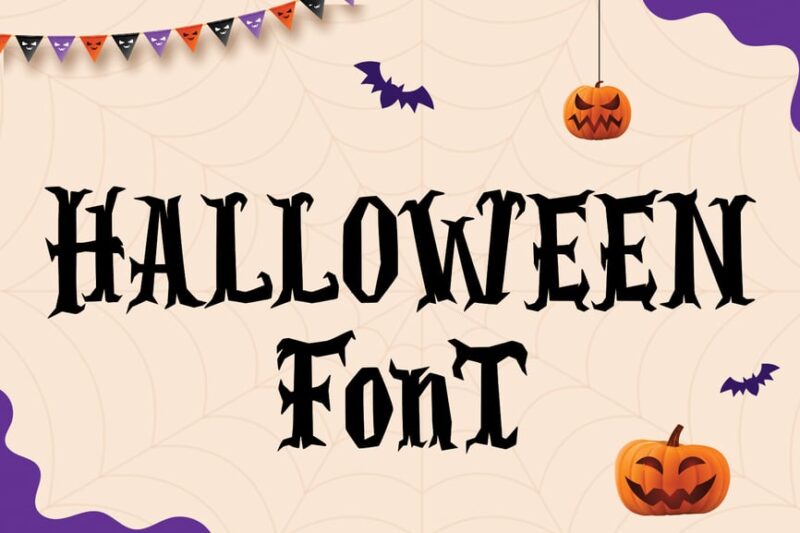
This sans-serif font embodies the spirit of Halloween with its spooky and playful design. And TBH, it’s kindof giving ‘Harry Potter’ Font in a way… It’s perfect for creating eye-catching titles and headlines for Halloween-themed projects, offering a balance between readability and festive charm.
Halloween Timeline – Display Font
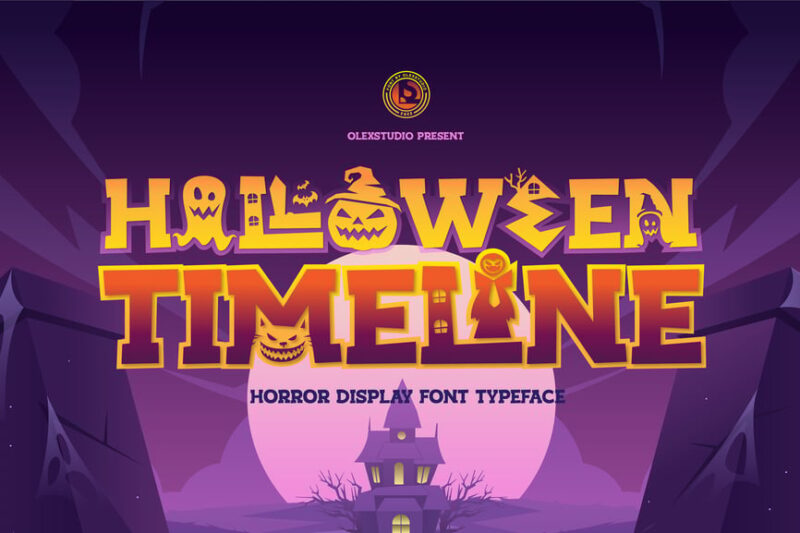
This serif display font captures the eerie essence of Halloween with its vintage-inspired design. Its distinctive characters make it ideal for large-scale applications like posters or book covers, adding a touch of classic horror to any project.
Happy Halloween
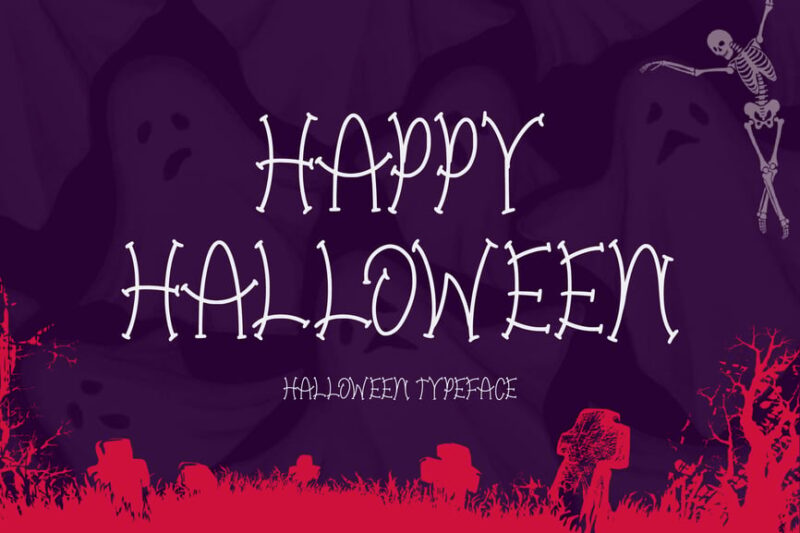
This decorative font captures the fun and festive side of Halloween. Its playful monoline design incorporates holiday motifs, making it ideal for creating invitations, greeting cards, or social media posts with a cheerful Halloween vibe.
Fantasia Halloween – A Horror Typeface
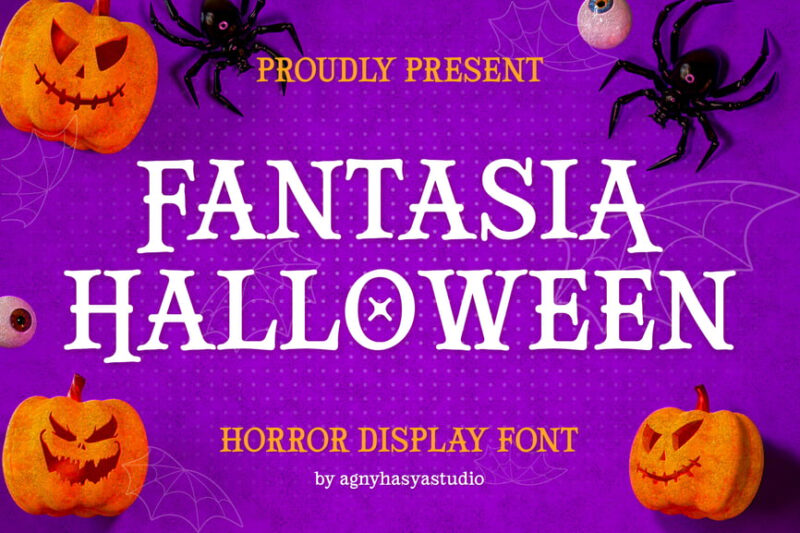
This decorative horror typeface blends fantasy and fright to create a unique Halloween aesthetic. Its intricate details and bold style make it perfect for creating standout titles in horror-themed designs or Halloween marketing materials.
Haunted House
This decorative font evokes the eerie atmosphere of a haunted house with its gothic-inspired design. Its spooky yet elegant characters are perfect for creating mysterious and atmospheric text in Halloween and autumn-themed projects.
Halloween – Might Night
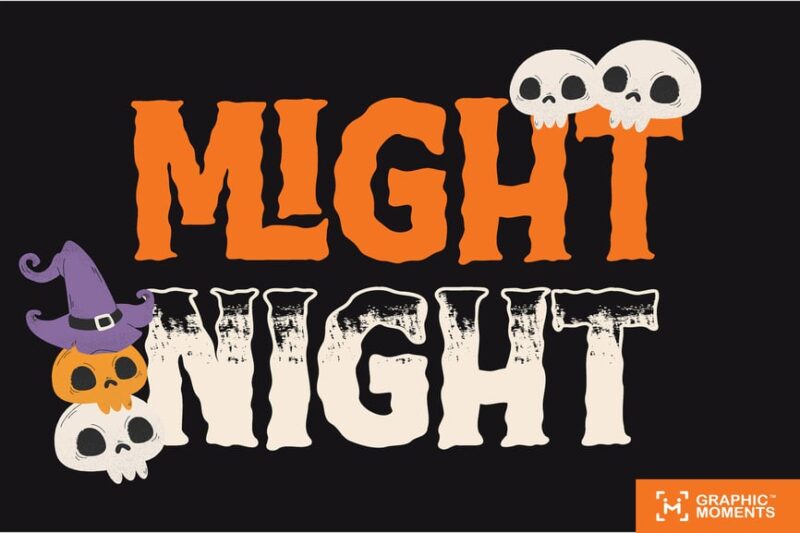
This decorative font captures the darkness and evil associated with Halloween night. Its wavy characters create a sense of foreboding fun, making it ideal for fun Halloween event promotions.
Scarville
This decorative font with included symbols brings a “Nightmare Before Christmas” feel to Halloween designs. Its distressed look and grungy texture make it perfect for creating a post-apocalyptic or horror-survival aesthetic in graphic projects.
Halloween – Zombie Outbreak
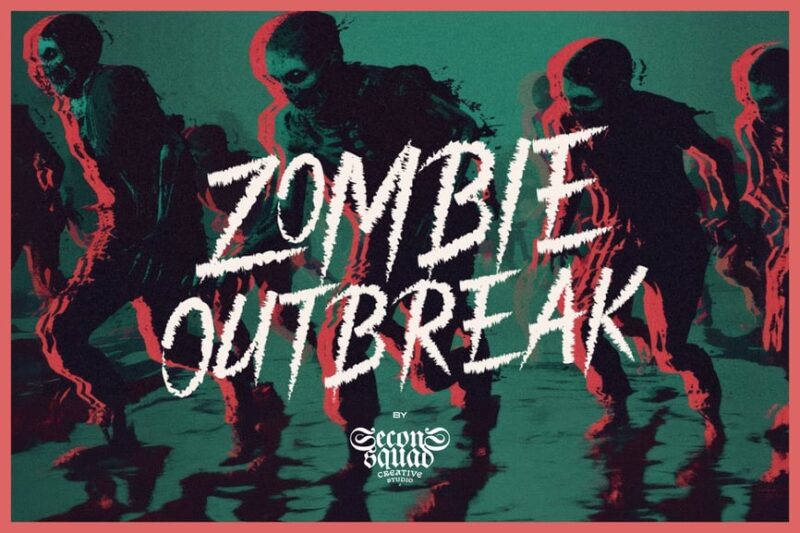
This decorative font embodies the chaos and terror of a zombie outbreak. Its rough, chalky style perfectly captures the essence of zombie-themed Halloween designs, ideal for creating attention-grabbing headlines or game titles.
Halloween Sunday – a Playful Scary font
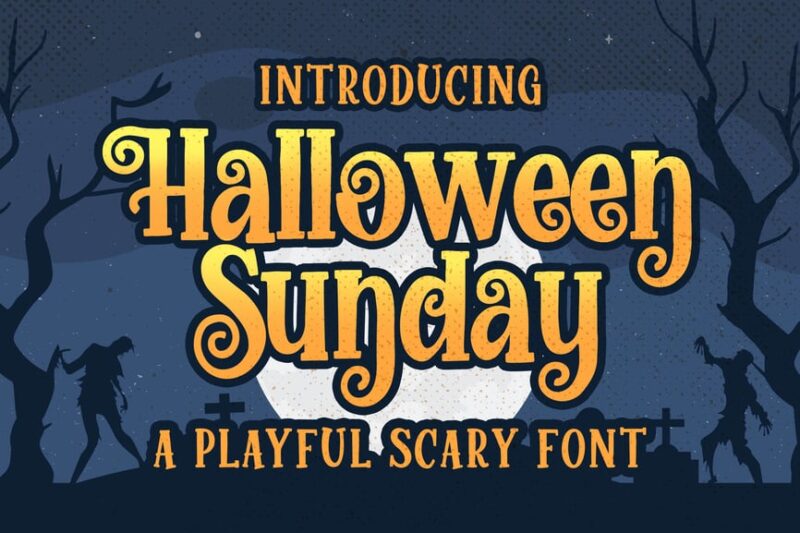
This serif font strikes a balance between playful and scary, perfect for family-friendly Halloween designs. Its scary characters add a touch of whimsy to creepy concepts, making it versatile for various Halloween-themed projects.
SpookInk – Halloween Font
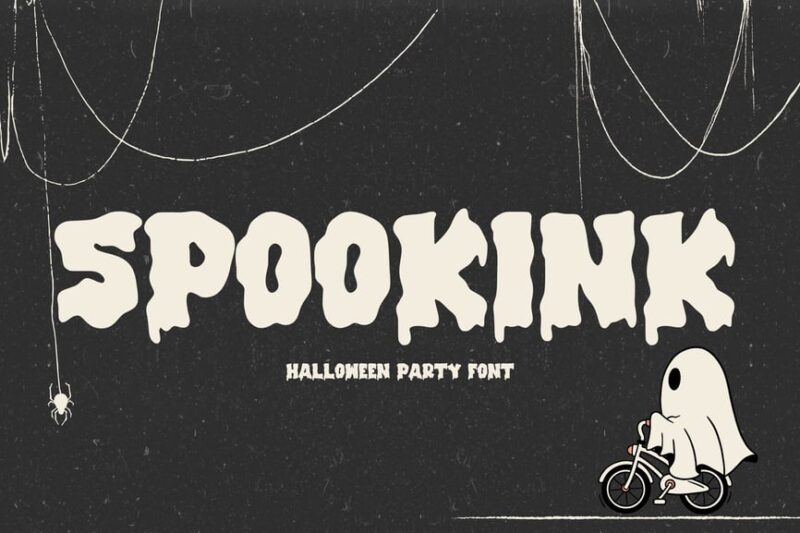
This decorative font combines a hand-drawn style with horror elements. Its inky, drippy texture creates a sense of unsettling eeriness, perfect for creating atmospheric text in Halloween invitations, posters, or horror-themed designs.
Trick or Treat Silhouette Font
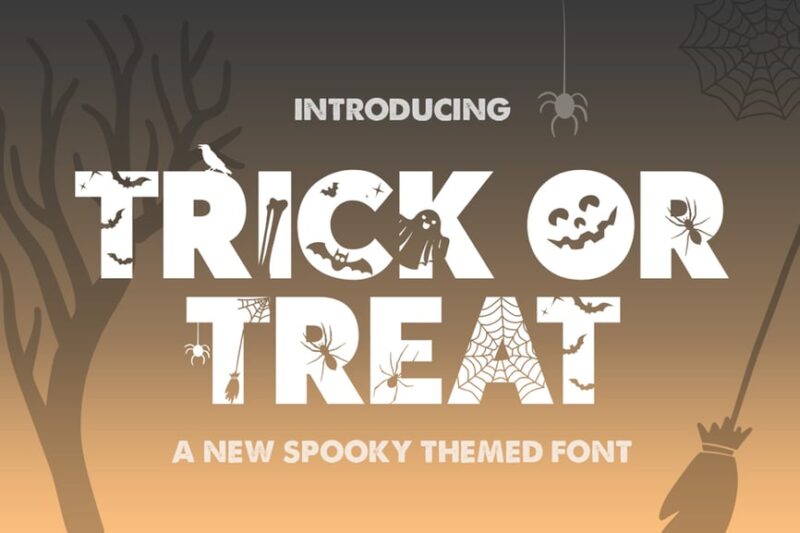
This decorative sans-serif font features Halloween-themed silhouettes within its characters. Its unique design makes it perfect for creating eye-catching titles or logos for trick-or-treat events, Halloween parties, or spooky-themed products.
Spooky Hill – Halloween Font
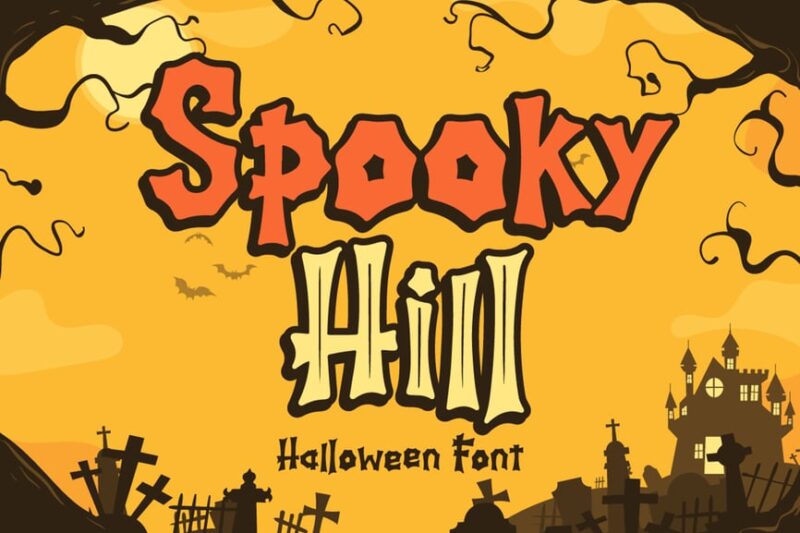
This decorative font evokes the eerie atmosphere of a haunted hilltop. Its characters feature subtle curves and sharp edges, creating a balance between creepy and elegant that’s perfect for sophisticated Halloween designs.
Pumpkind Spooky Font
This decorative font captures the essence of carved pumpkins with its playful yet creepy design. Its characters feature jack-o’-lantern-inspired elements, making it ideal for creating fun and spooky text for Halloween projects.
So this 2026, don’t let your Halloween designs fall flat. Embrace the power of spooky typography and watch as your projects come alive with supernatural charm. After all, in the world of design, the right font can be the difference between a design that’s dead on arrival and one that’s absolutely drop-dead gorgeous.
Now go forth and create some hauntingly beautiful designs. Your audience is dying to see what you’ll conjure up!